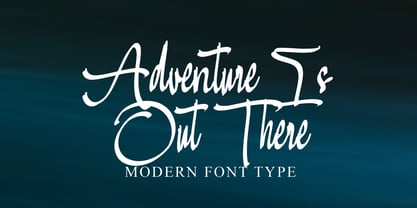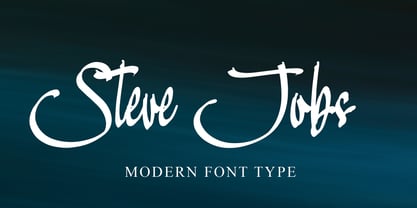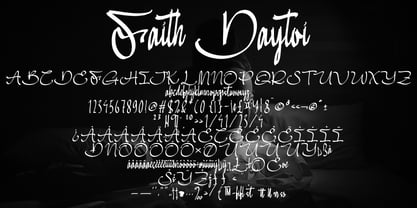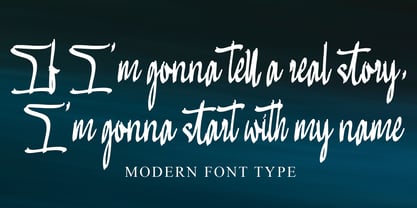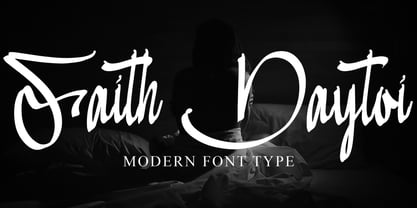
Faith Daytoi
by Ayska
The Faith Daytoi Font Family was designed by Dhoni Trihatmoko and published by Ayska. Faith Daytoi contains 1 styles. More about this family
Step into the enthralling universe of Faith Daytoi, an exalted caliber typeface delicately intertwining contemporary grace with flowing, hand-scripted elegance. Faith Daytoi, scrupulously hand-sculpted, radiates a matchless magnetism and polished charm that makes it a priceless asset in your digital design pursuits. Savour its hypnotic attraction as it accentuates the allure of your blog, adds a bespoke touch to your digital planner designs, weaves a touch of personal charm into your invitations, or breathes emotive sentiments into tailor-made greeting cards. Revel in the timeless sophistication and innovative soul of Faith Daytoi as it metamorphoses your cherished photo albums or bespoke home decor. Owing to its versatile capability to seamlessly transform plain digital canvases into stunning, attention-grabbing wonders, the enchanting influence of Faith Daytoi is unparalleled. Empower Faith Daytoi to guide your artistic expeditions, instigating an unforgettable spectacle of impressive artistry. Succumb to the creative spell of Faith Daytoi, and behold as your artistic aspirations blossom into distinct, brilliant realities.
Designers: Dhoni Trihatmoko
Foundry: Ayska